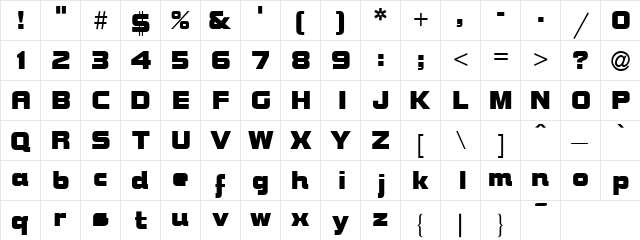
Brock Bold
Design Context for Brock Typeface
Brock takes a measured approach to typography — its balanced proportions and neutral character make it a reliable workhorse for both digital and print work. Its bold stroke weight gives it real presence on the page.